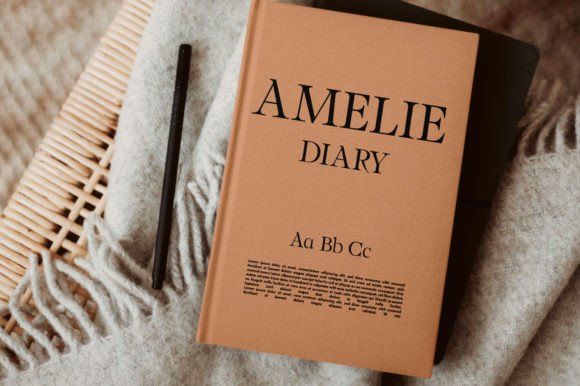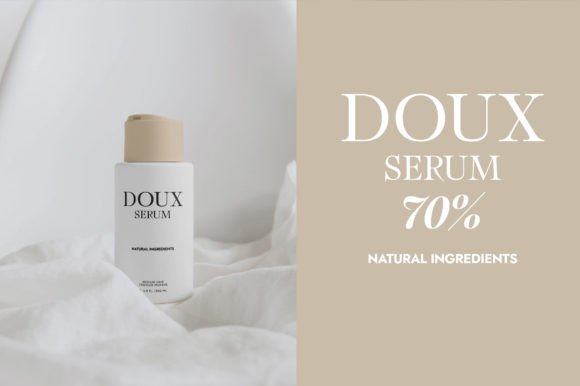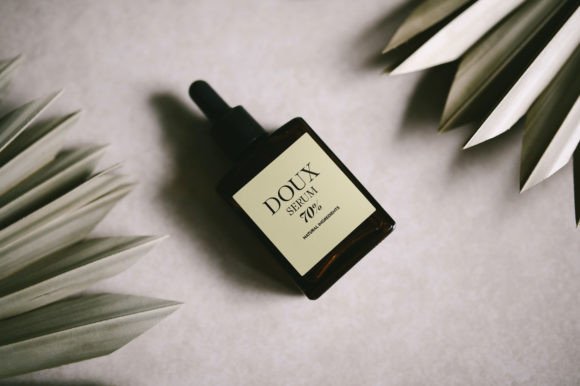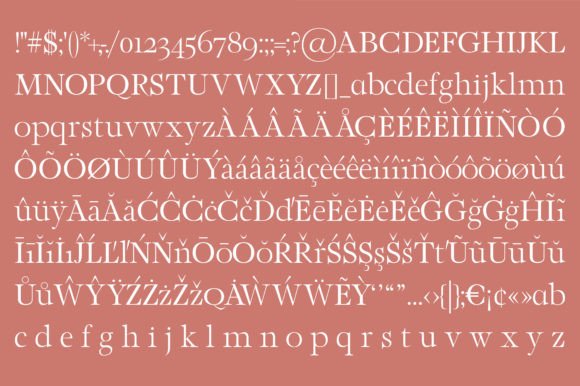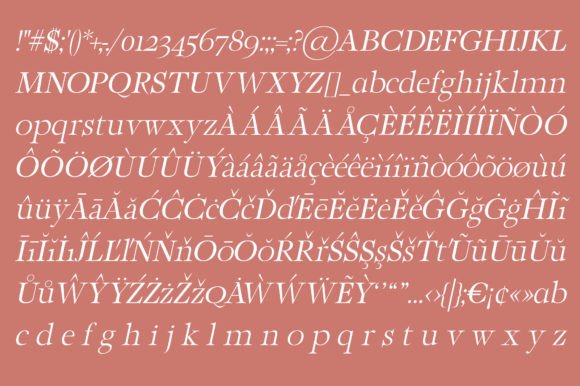
Introduction to Doux Font
As designers, we’ve all been there – staring at a blank canvas, trying to bring our creative vision to life. The perfect font can make all the difference, elevating our work from good to great. And that’s exactly where the Doux Font comes in – a stunning, elegant serif typeface designed to captivate audiences and leave a lasting impression.
With its clean lines, minimalist aesthetic, and versatility, the Doux Font is a game-changer for designers. Whether you’re working on a high-end fashion project, a perfume label, or a magazine cover, this font is sure to add a touch of sophistication and class. Its adaptability makes it a valuable resource for designers, allowing you to create stunning visuals with ease.
Doux Font
- Designed with a focus on elegance and sophistication, making it perfect for high-end projects
- Can be easily scaled and manipulated without compromising its quality, making it ideal for logos, titles, and headings
Honest Review: Doux Font
I recently had the chance to experiment with the Doux Font, a free design resource that caught my attention for its sleek and modern aesthetic. As a designer, I was excited to see if it would live up to its high quality promise.
- ✨ Beautifully crafted characters with a clear, transparent background
- ✨ Perfectly suited for creative projects that require a touch of elegance
- ✨ Easy to customize and adapt to different design styles
- ⚠️ Limited character set, which may not be ideal for long-form text projects
- ⚠️ Some users may find the font too minimalist, which may not be suitable for every design style
Overall, I was impressed with the Doux Font’s quality and versatility. While it may not be perfect for every project, it’s a great addition to any designer’s toolkit, especially for those looking for a high-quality, free download. With a little creativity, the Doux Font can elevate any creative project to the next level.
Doux Font
Doux Font is a high-quality design resource that offers a wide range of stylish and creative fonts. With a transparent background, this font is perfect for any creative project that requires a unique touch.
Tips for Getting the Most Out of Doux Font
To get the most out of Doux Font, try combining it with other design elements such as icons, graphics, or images. You can also experiment with different font sizes, colors, and styles to create a unique look.
Doux Font is perfect for a variety of creative projects such as:
- Brochure design
- Poster design
- Website design
Alternatives to Doux Font
Great Vibes Font is a high-quality, elegant script font perfect for creative projects requiring a sophisticated touch. Its transparent background makes it ideal for overlaying on images or using as a standalone design element. Great Vibes Font is a great alternative to Doux Font for designers seeking a more refined and luxurious feel.
Carolyna Pro Font is a modern, elegant font perfect for use in high-end design projects. Its transparent background and high-quality design make it an excellent alternative to Doux Font for designers seeking a sophisticated and professional look. Carolyna Pro Font is ideal for use in creative projects such as branding, advertising, and editorial design.
Is Doux Font available in multiple weights and styles?
Yes, Doux Font is available in a range of weights and styles, including light, regular, bold, and italic. This allows you to use the font in a variety of design contexts, from body text to headings and titles. You can easily switch between weights and styles to create a cohesive and professional design look.